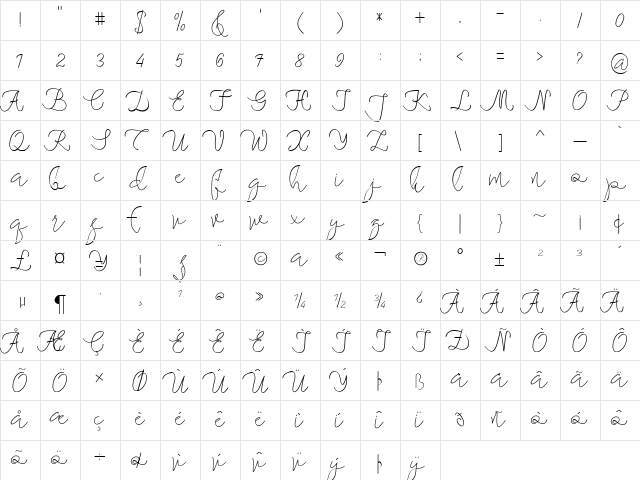
maheishia Regular
| Foundry | triotone |
Design Context for maheishia Typeface
maheishia takes a measured approach to typography — its balanced proportions and neutral character make it a reliable workhorse for both digital and print work.